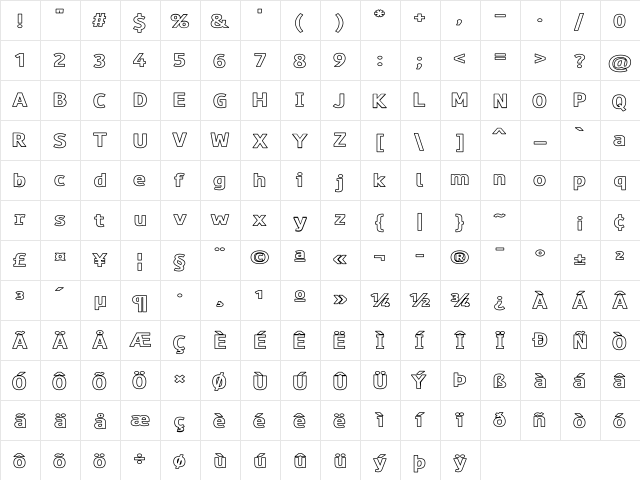
Paneuropa Bankette Regular
| Foundry | Peter Wiegel |
| Designer | Peter Wiegel |
Design Context for Paneuropa Bankette Typeface
Paneuropa Bankette offers clean, dependable letterforms without strong stylistic allegiance, making it a practical choice for designers who need flexibility.